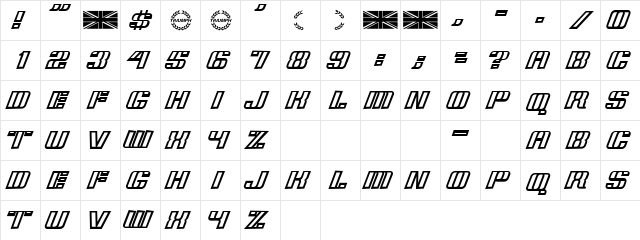
1500 outline
Design Context for 1500 Typeface
1500 brings ornamental detail and strong personality to headlines and identities, where visual impact matters more than quiet functionality.
Font Pairing: Pair with a clean neutral sans-serif for body copy to let 1500's character lead without overwhelming the composition.
Pro Tip: Use 1500 exclusively at display sizes — it was designed to be seen, not read at length. Let a neutral companion handle body copy.